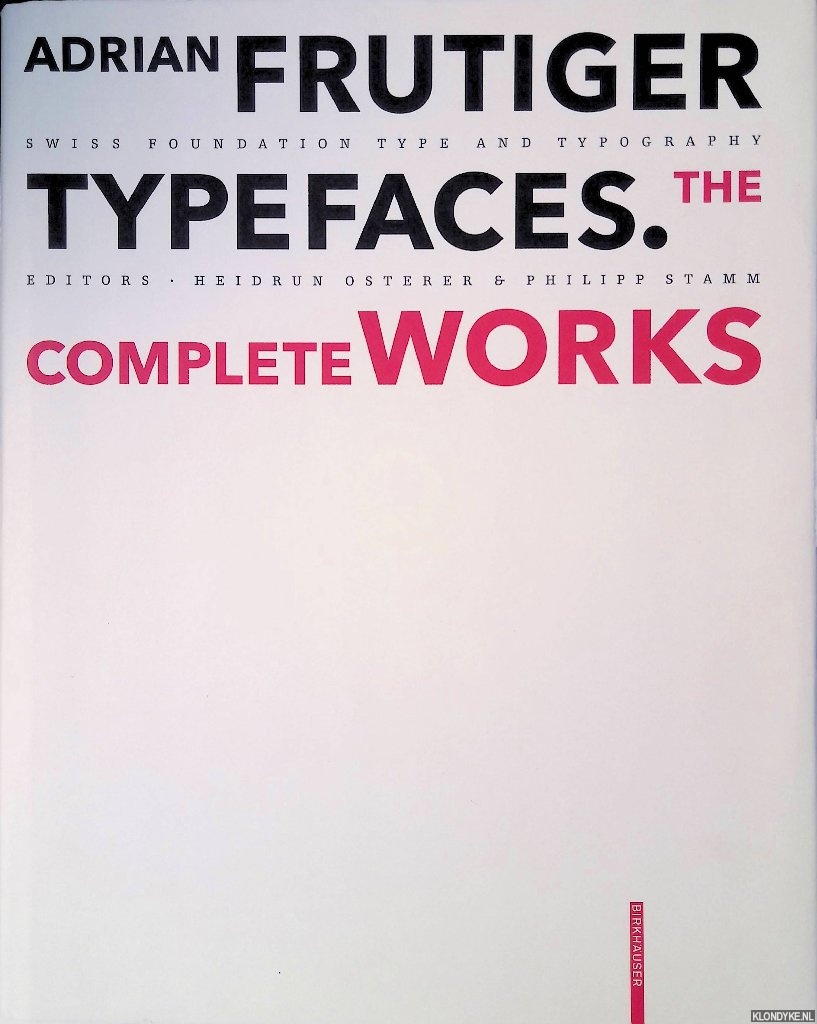
Adrian Frutiger Typefaces: The Complete Works
Door Heidrun Osterer e.a.
Titel | Adrian Frutiger Typefaces: The Complete Works |
Auteur | Osterer, Heidrun & Philipp Stamm (editors) |
Beschrijving | Original red cloth, dust jacket, ribbon marker, numerous illustrations/letters, 4to. |
Samenvatting | The creation of type in the latter half of the 20th century was considerably influenced by the Swiss type designer Adrian Frutiger. His typefaces are amongst the most successful of contemporary classics. Adrian Frutiger - Typefaces. The Complete Works is based on interviews and conversations with the designer and on comprehensive research by the editors. Its depth and range make it an indispensable reference work. Completed in the year of Adrian Frutiger's 80th birthday, it represents, as is his wish, his legacy to further generations of type designers and typographers. |